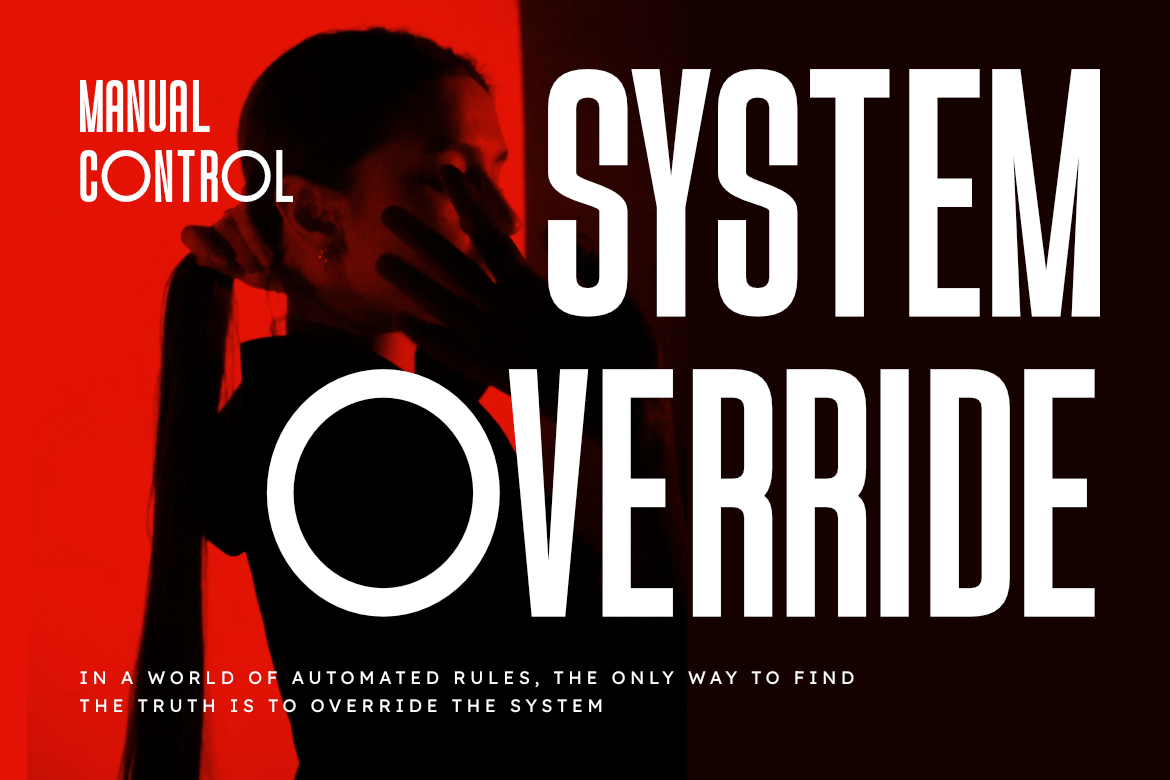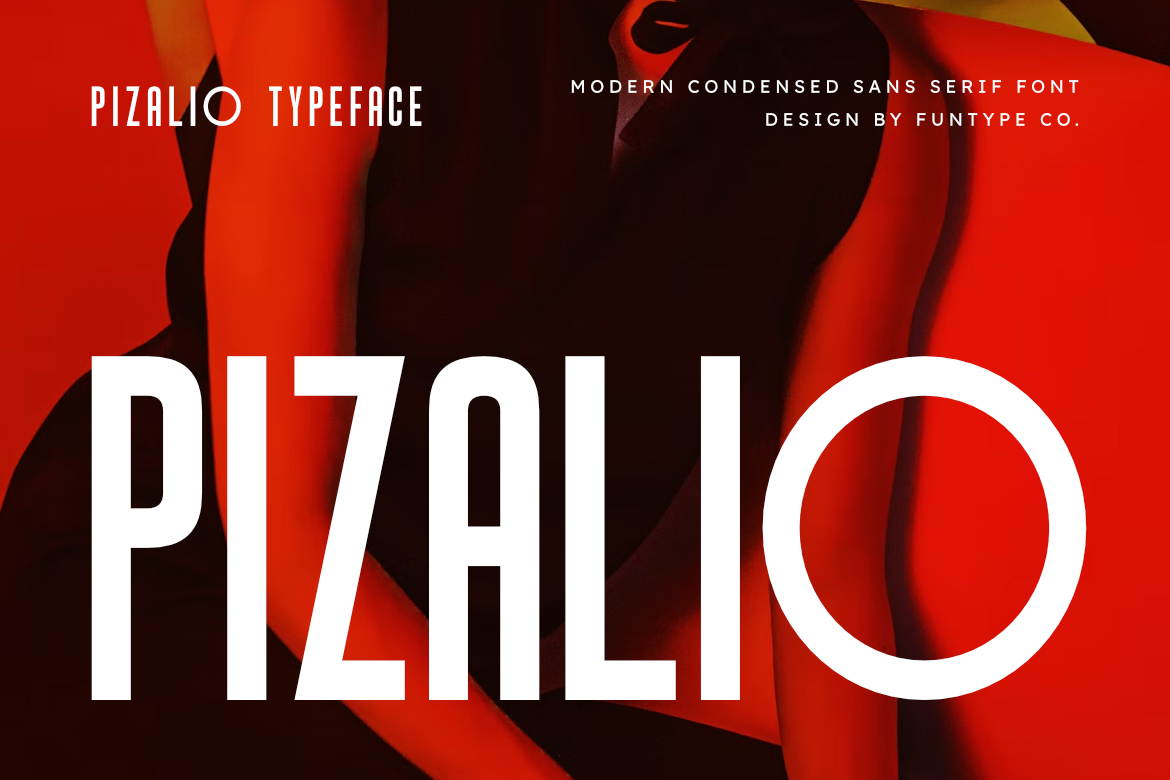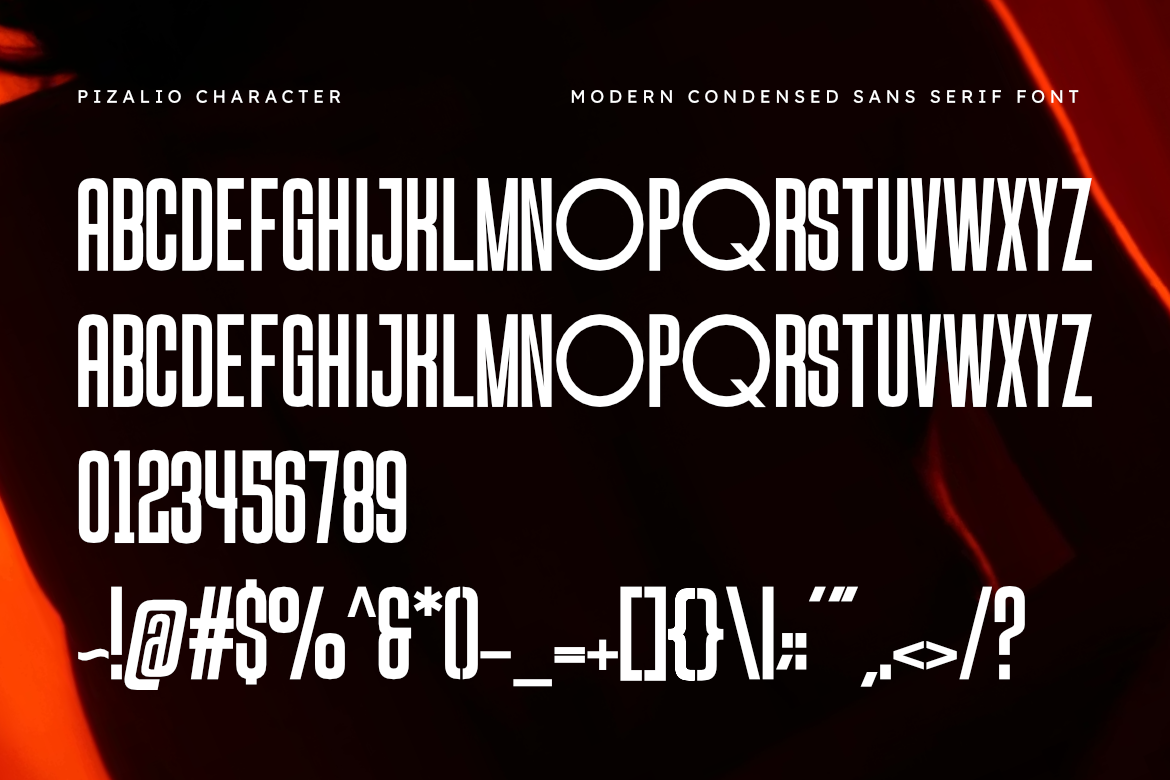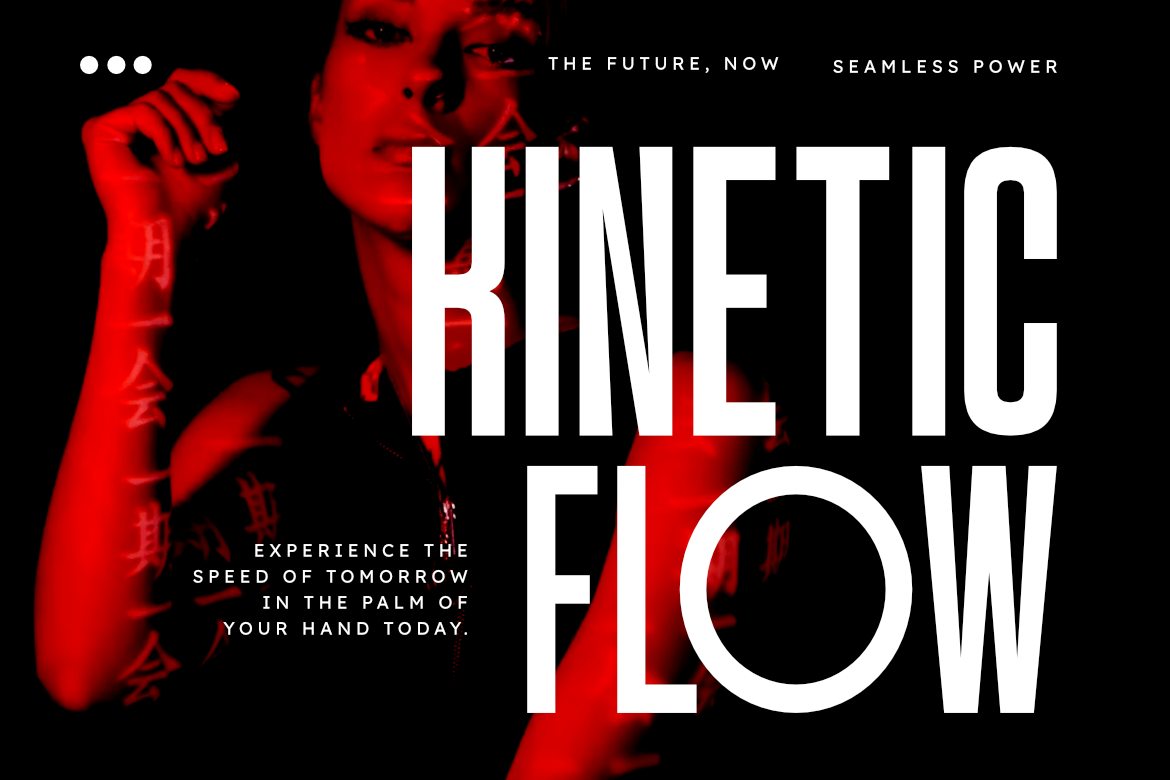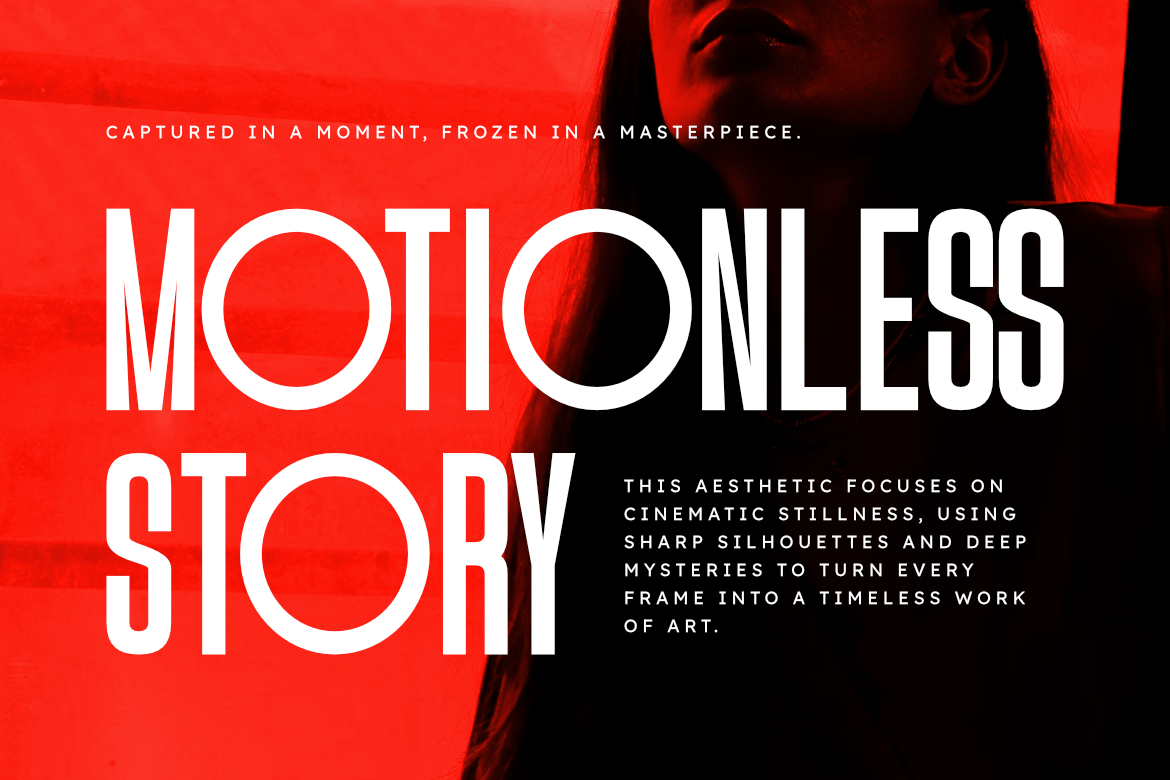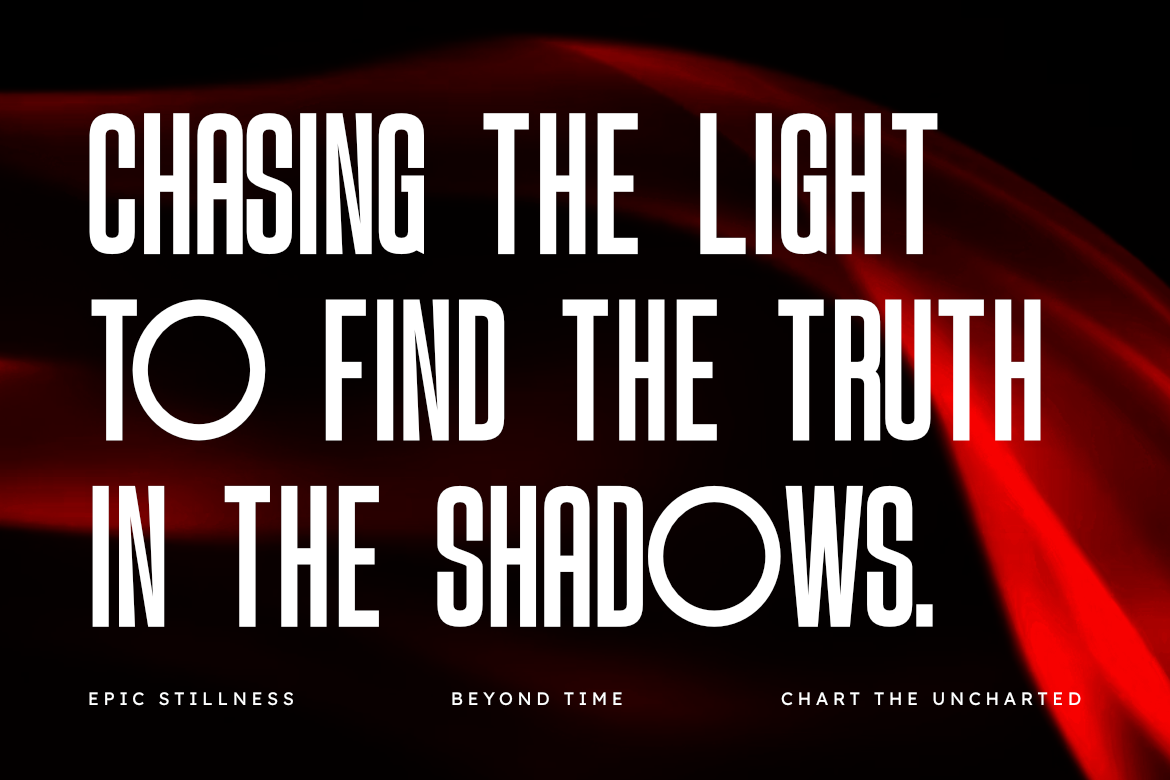
Pizalio – Modern Condensed Sans Serif Font
Elevate Your Design with Pizalio: The Ultimate Modern Condensed All Caps Font
Are you looking for a modern condensed sans serif font that combines strength with elegance? Introducing Pizalio, a premium all caps font designed by Funtype Co. for high-end branding and professional layouts. Pizalio stands out as a tall, narrow font with unique geometric touches, making it the perfect choice for luxury logos, fashion editorials, and minimalist posters.
This clean sans serif is engineered for maximum impact in tight spaces, ensuring your headlines remain readable and stylish. Perfect for skincare branding, architectural design, and modern advertising, Pizalio helps you achieve a sophisticated aesthetic effortlessly. Download the OTF and TTF files today and transform your creative projects with a typeface built for modern excellence.